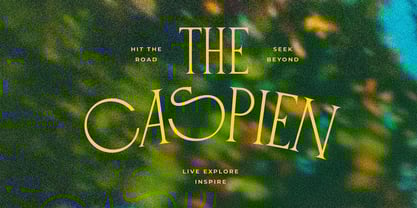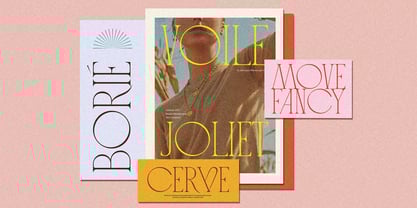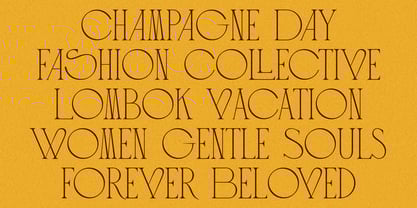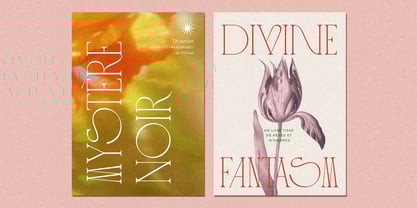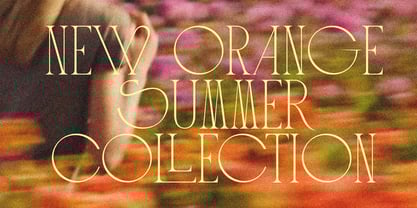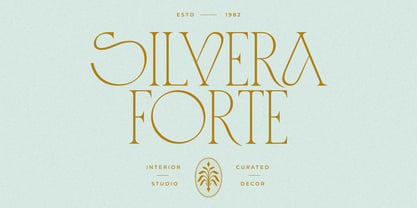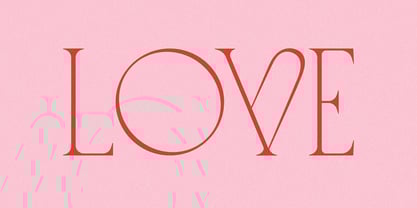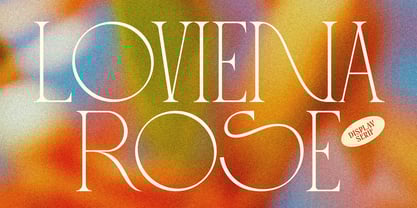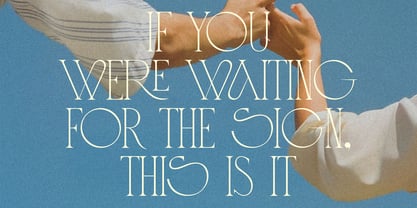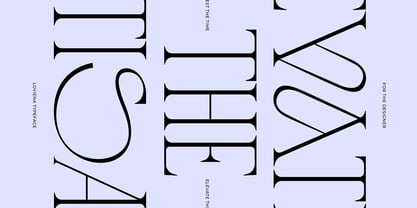
CCS Loviena
by Creative Corner Studio
The CCS Loviena Font Family was designed by Kurt Harahap and published by Creative Corner Studio. CCS Loviena contains 3 styles and family package options. More about this family
Introducing Loviena Display Serif, a font that embodies elegance with a playful twist. Designed in an all-caps style, Loviena offers a refined balance of classic sophistication and modern charm, evoking the luxurious feel of a tropical summer getaway. With its array of stylish alternates and ligatures, this versatile typeface adds a touch of uniqueness and creativity to headlines, titles, logos, and layouts. Available in three weights—Regular, Semibold, and Bold—Loviena is perfect for designers seeking a timeless yet fun option to elevate their projects with a fresh, feminine flair.
Features:
• 3 Weights font
• Stylistic Alternates & Ligatures
• Multilingual
Designers: Kurt Harahap
Foundry: Creative Corner Studio